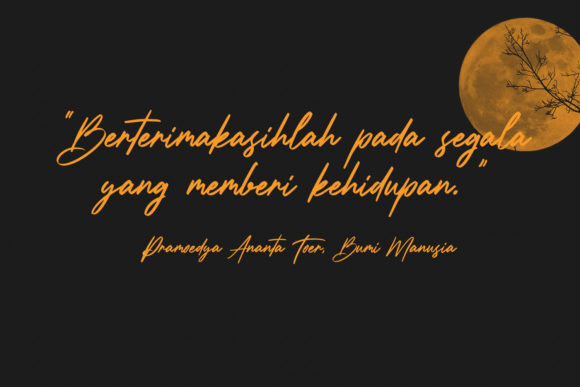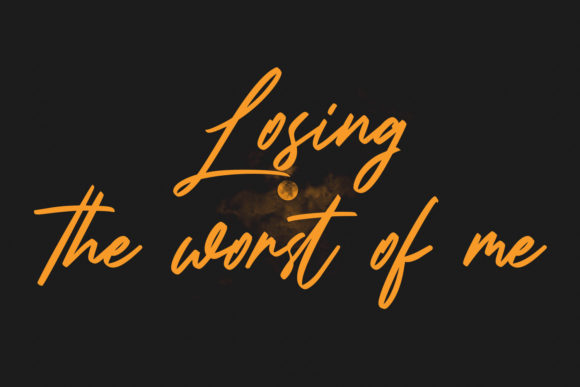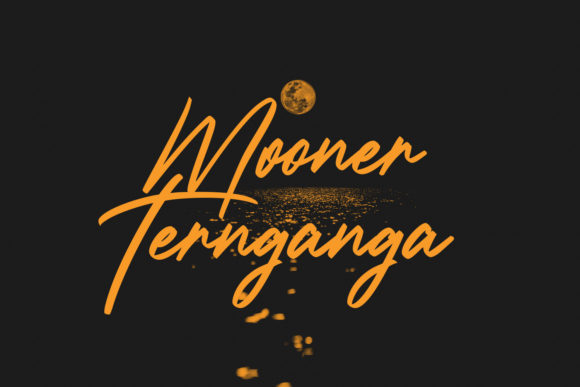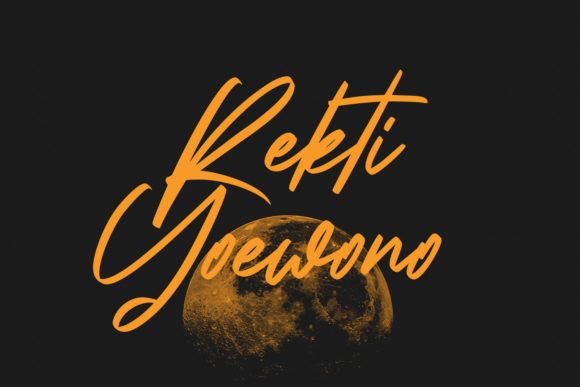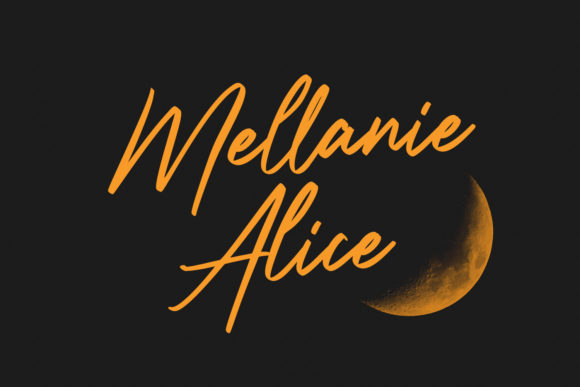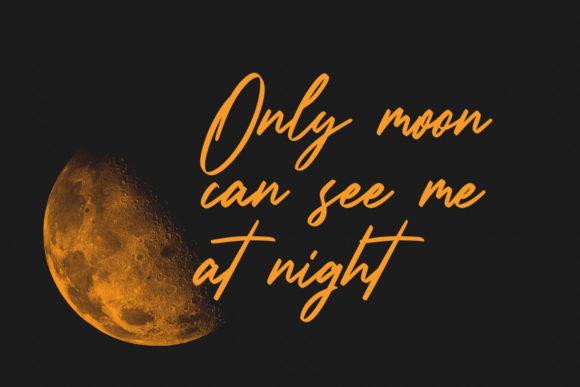
Introduction to Kyliewest Signature Font
Kyliewest Signature is a lovely and delicate script font that exudes elegance and class.
This font was particularly crafted for those who need a beautiful and refreshing look to their designs .
Kyliewest Signature Font offers exceptional quality and versatility, making it a valuable addition to your design toolkit. Whether you’re creating for personal projects or commercial use, Kyliewest Signature Font delivers professional results.